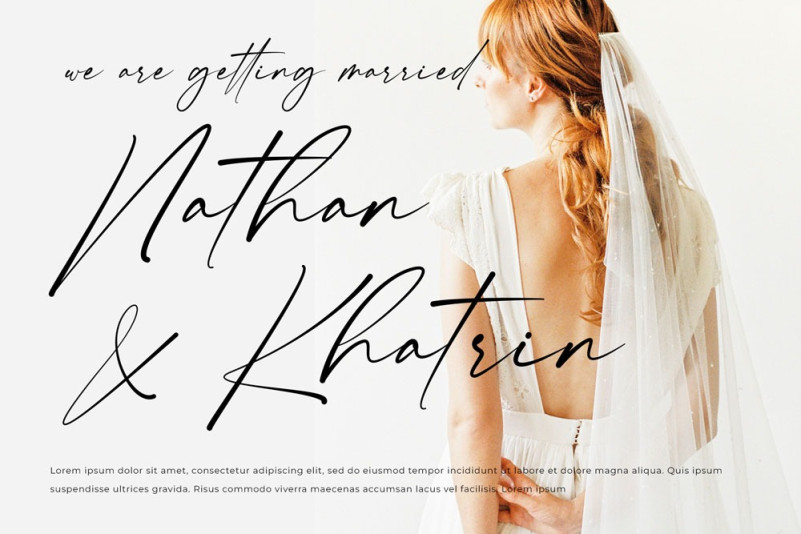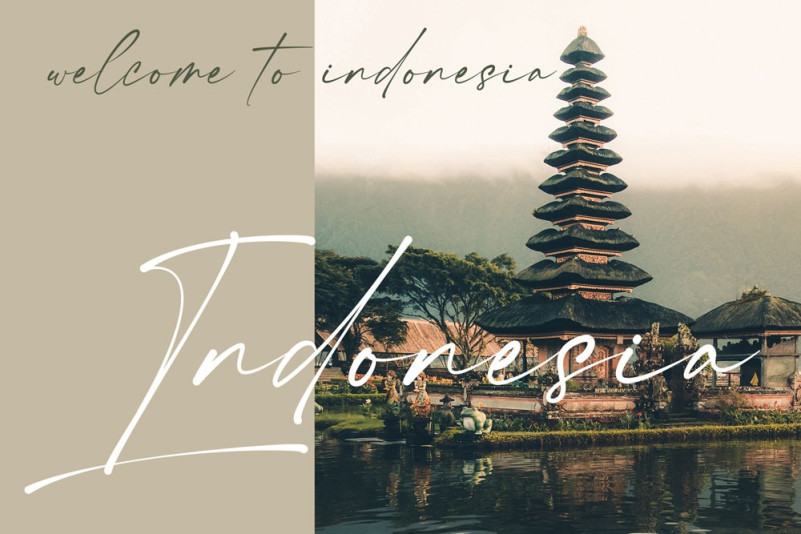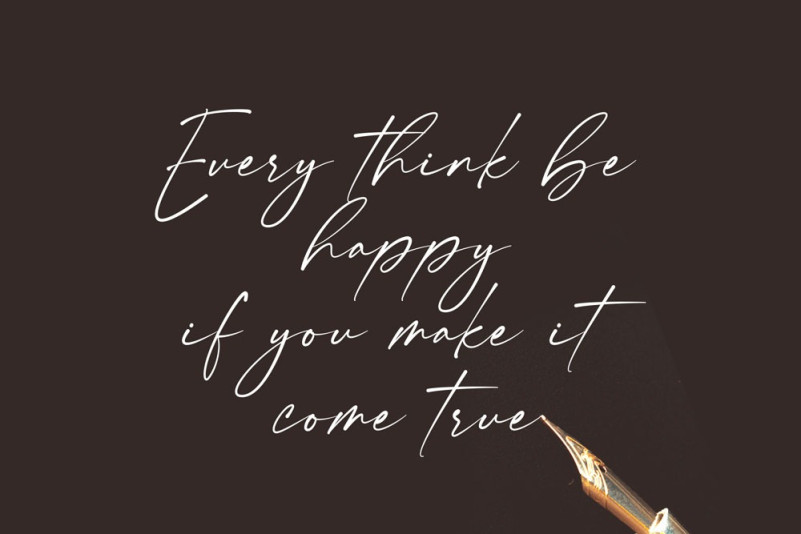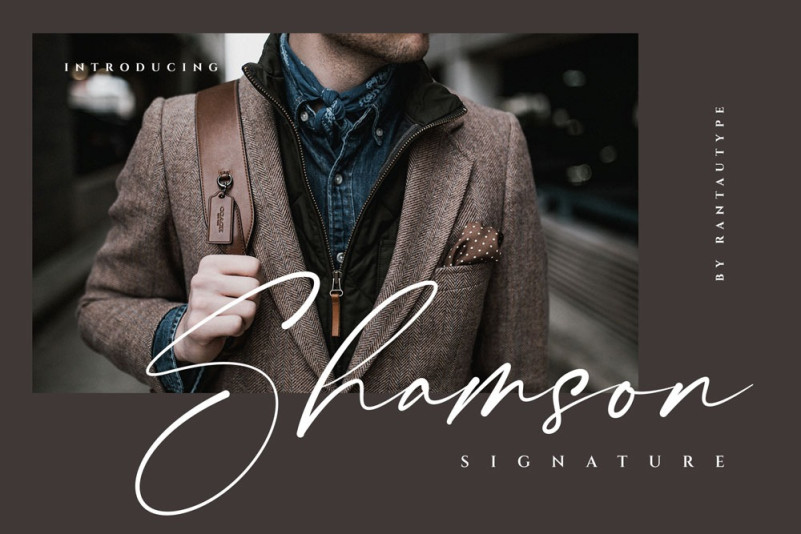
Shamson Signature Font
Shamson Signature Script Font is an imperfectly charming handwritten typeface created by Rantautype. This font looks elegant, luxury, premium, modern, readable, stylish, feminine, girly, catchy and easy to use also included with more swash. Shamson signature is the great choice for watermark on photography, signature or signature logo design, quotes, album cover, magazine, business card and many other design project. Shamson signature here to make your work to high level!!!